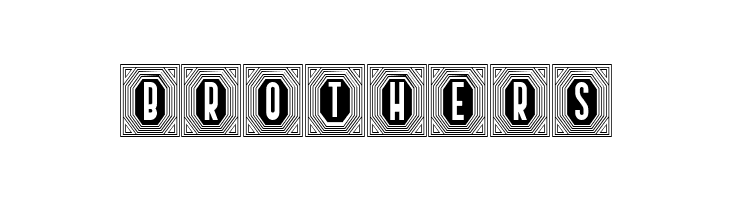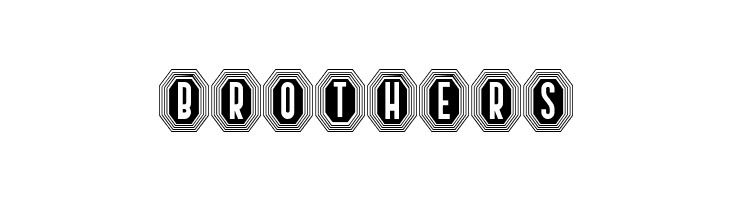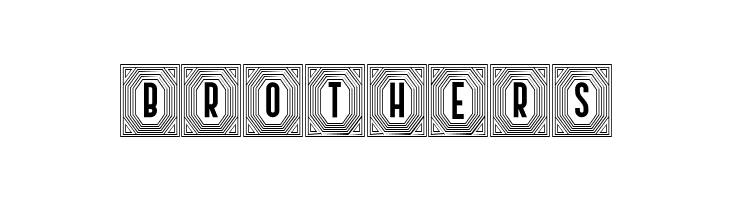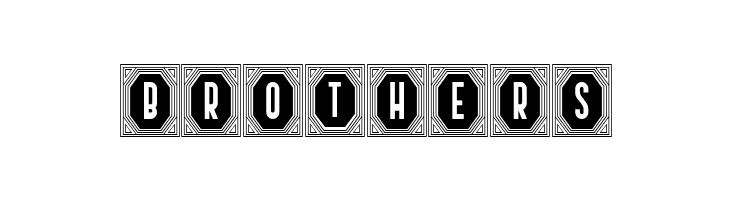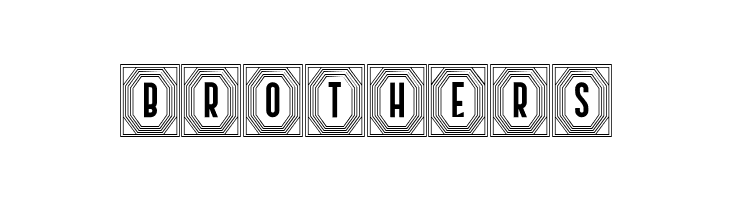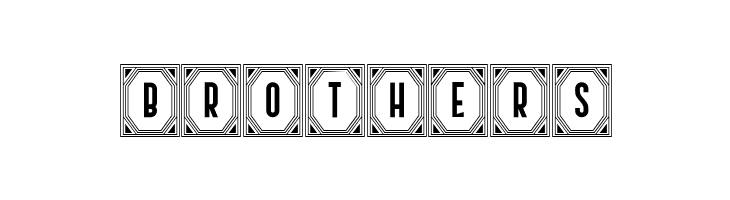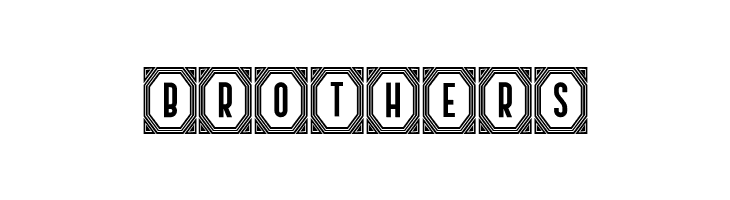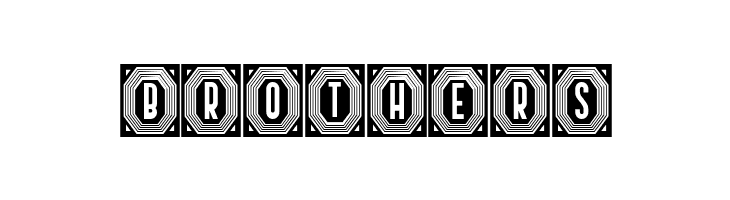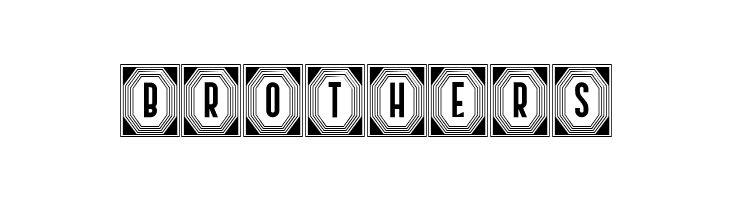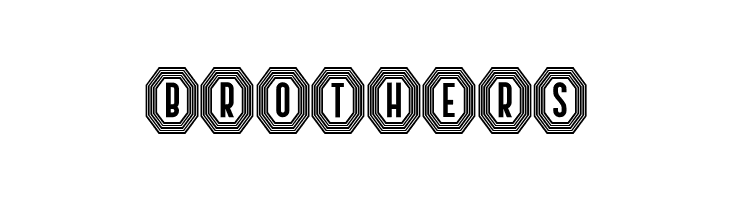
A bold, angular font with a playful and dynamic style.
• Capital Clickbait
A bold, geometric font with rounded edges and a modern style.
• Capital regular
• Capital Relationship Regular
A bold, decorative font with a unique dotted border around each character.
• Capital Revolution
• Capitalismo 1 Regular
A bold, decorative font with geometric borders and sans-serif characters.
• Capitalismo 10 Regular